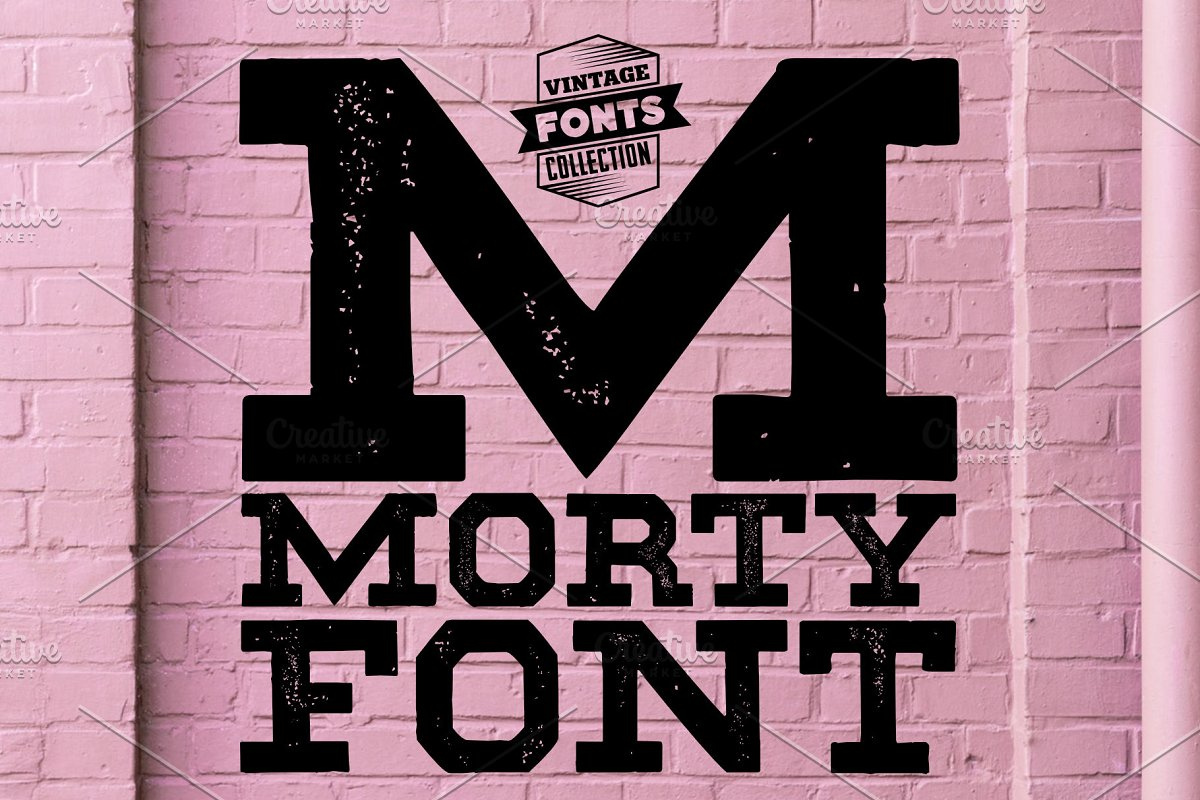
Morty Font
Morty Font is perfectly suited for animated series graphics, cartoon character designs, children's book illustrations, playful logo designs, gaming interfaces, comic book lettering, youth-oriented marketing materials, educational content for kids, and entertainment industry branding.
What makes Morty Font so exciting is its vibrant personality that instantly evokes fun, creativity, and youthful energy in any design project. This dynamic typeface captures the essence of modern animation and pop culture with its distinctive character shapes and playful proportions. The font's unique styling creates an immediate connection with audiences who appreciate contemporary entertainment and animated content. Morty Font stands out through its ability to convey humor, adventure, and creativity while maintaining excellent legibility across various applications, making it perfect for projects that need to engage younger demographics or create a sense of fun and excitement.
The Morty Font family includes various weights such as Regular, Bold, and Extra Bold, each maintaining the font's characteristic animated appeal while providing designers with flexibility for creating effective visual hierarchies. The family also features stylistic alternates and special characters that enhance creative possibilities for unique design solutions.
Whether you're developing animated content, creating merchandise for entertainment properties, designing educational materials for children, or crafting branding that needs to convey fun and creativity, Morty Font delivers the perfect combination of entertainment value and professional quality that makes your designs instantly recognizable and engaging for contemporary audiences.